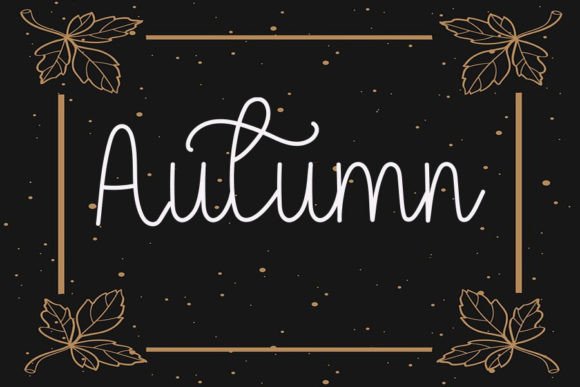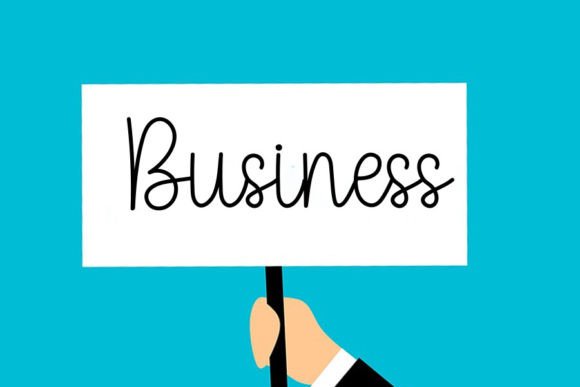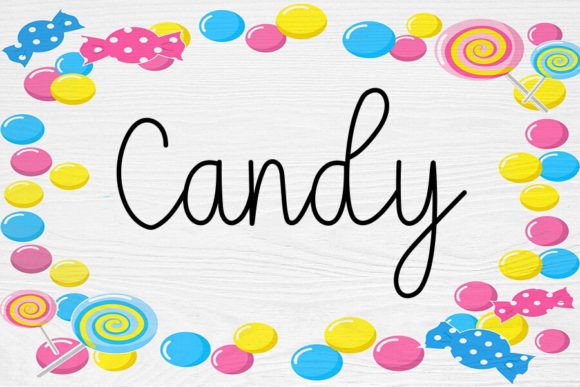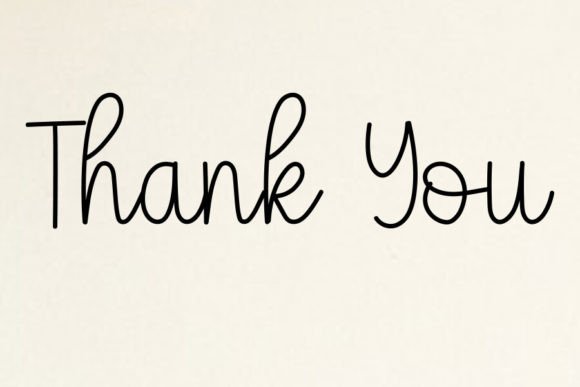
The Perfect Addition to Your Design Toolbox
Have you ever been in the midst of a creative project, and the perfect font just wasn’t there? You’ve scrolled through your font library, but nothing seems to capture the essence of your design. This is where the magic of Baby Sister Font comes in – a fun and friendly handwritten font that’s sure to bring a smile to your face and a touch of personality to your work.
Whether you’re a crafter, digital designer, or simply someone who loves making greeting cards, Baby Sister Font is the perfect addition to your design toolbox. Its versatility makes it an ideal choice for any occasion, from birthday cards to social media graphics. With its friendly and approachable vibe, this font is sure to become a go-to favorite for designers of all levels.
Baby Sister Font Key Features
- Unique Characteristics: Baby Sister Font features a distinctive, rounded design with a subtle texture, giving it a soft and approachable feel.
- Legibility: Baby Sister Font is designed to be highly legible, even at small font sizes, making it an excellent choice for use in digital products where space is limited.
Designer Review: Baby Sister Font
As a designer, I was excited to dive into the Baby Sister Font and see what it had to offer. Overall, I think it’s a solid choice for a variety of projects, but with some caveats.
- Soft, feminine feel: The Baby Sister Font has a lovely, whimsical quality that’s perfect for projects targeting young women or children.
- Legibility: Despite its cursive nature, the font is surprisingly easy to read, even at smaller sizes.
- Customization options: The font includes a range of ligatures and alternate characters that can add a touch of personality to your designs.
- Limited versatility: While the font works well for feminine or child-related projects, it may not be the best choice for more serious or technical topics.
- Not ideal for large body text: The font’s cursive nature makes it less suitable for large blocks of text, where readability is key.
The Baby Sister Font is a charming, versatile choice that’s perfect for designers working on projects that require a touch of whimsy. While it may not be the best choice for every project, it’s a great addition to any font library.
Tips for Getting the Most Out of Baby Sister Font
Here are some tips for getting the most out of Baby Sister Font:
- Use it for titles and headings to add a touch of whimsy and elegance.
- Pair it with a bold font for a striking contrast.
Here are some common use cases for Baby Sister Font:
- Baby shower invitations and decorations.
- Choose the Baby Sister Font as the primary font for the journal’s title and headings.
- Pair the font with a clean, minimalist layout and simple illustrations to let the quotes and stories shine.
- Use the font’s playful and cursive style to add a touch of whimsy and personality to the journal’s design.
- Use pastel colors and soft textures to create a calming and soothing atmosphere in the journal.
- Add simple illustrations of flowers, birds, or other nature-inspired elements to break up the text and add visual interest.
How to use Baby Sister Font:
Project 2: Baby Sister Invitations
Project 3: Baby Sister Stationery Set
Create a sweet stationery set for new mothers using the Baby Sister Font. This project involves designing a set of notecards, greeting cards, and gift tags that capture the joy and excitement of welcoming a new baby sister.
How to use Baby Sister Font: